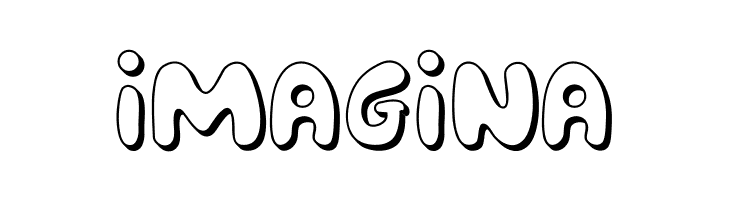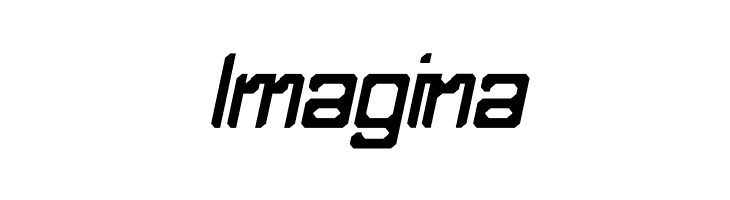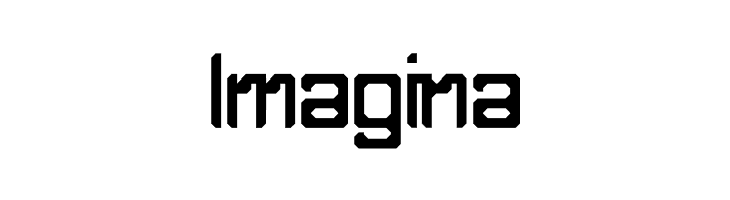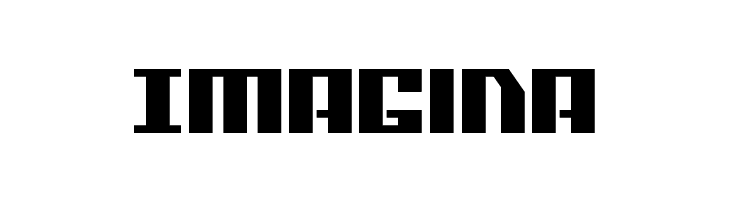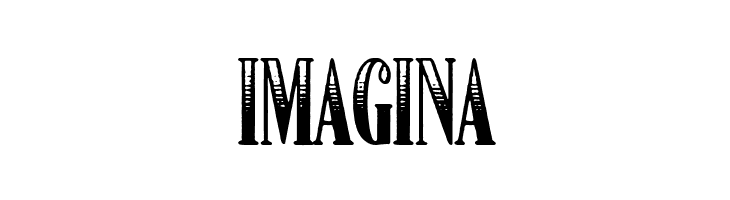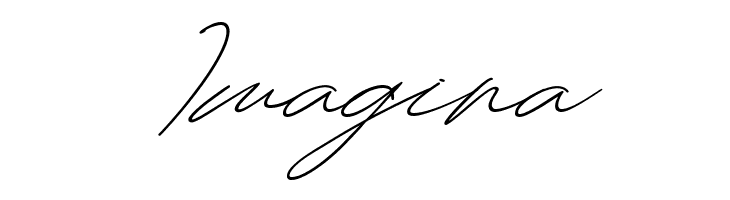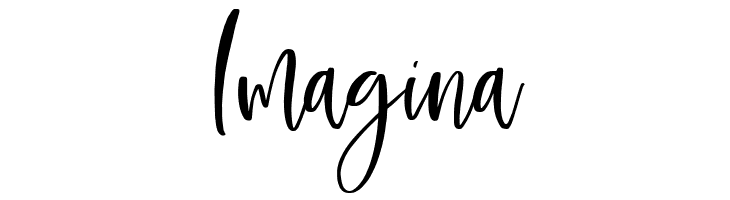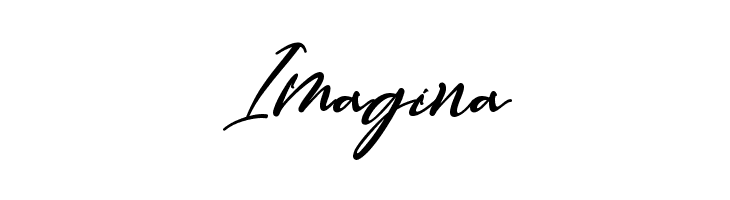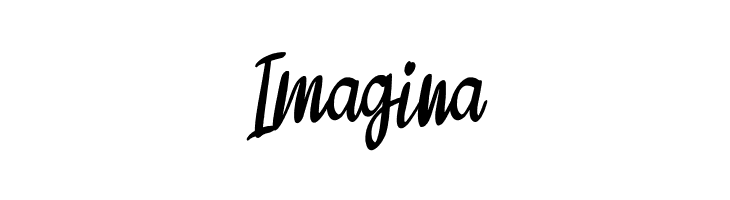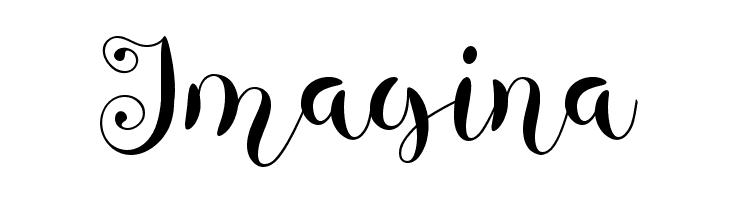
• amellya
An elegant, whimsical font with intricate swirls and curls, perfect for creative projects.
• Amelya
A bold, cursive script font with a flowing, handwritten style.
• amelyna
A lively and expressive handwritten font with fluid, artistic letterforms.
• Amenable Personal Use
A bold, modern sans-serif font with geometric lines and consistent stroke width.
• Amender Tu
A playful, bubble-like font with thick, rounded edges and a hollow effect.
• Amenity Kits
A dynamic handwritten font with expressive cursive letterforms.
• Amenity Kits
A bold, flowing script font with a lively and energetic style.
• Amenti RA
• Amenty
A bold, expressive handwritten font with fluid and dynamic strokes.
• Amera
A fluid and elegant script font with cursive, connected strokes.
• Amerggedon
A bold, geometric font with a futuristic and industrial design.
• Amerggedon Italic
A bold, italic font with a futuristic and dynamic style.
• Amerggedon Italic
A bold, italicized font with a futuristic and angular design.
• America
A flowing, cursive font with elegant loops and swashes.
• America and Stars
A bold, elegant cursive font with flowing, ornate characters.
• America Calligraphy
An elegant calligraphy font with flowing, interconnected strokes and ornate flourishes.
• America Faster
A bold, modern font with geometric and futuristic elements.